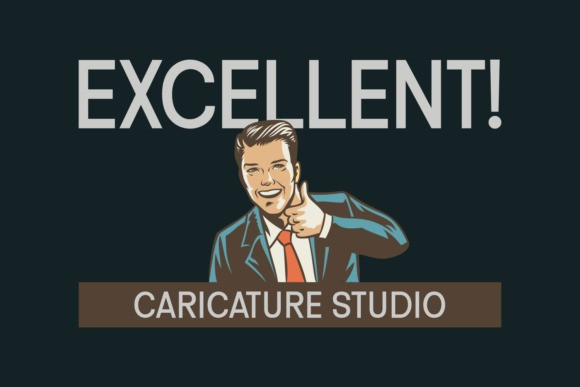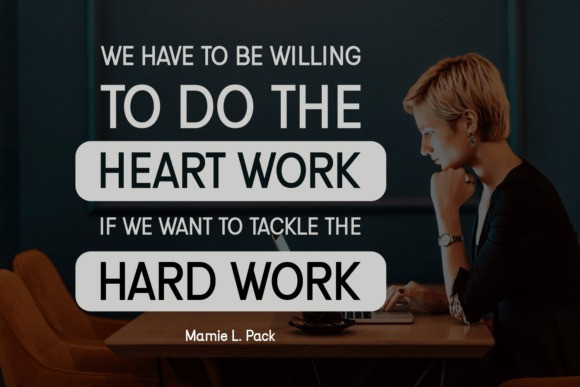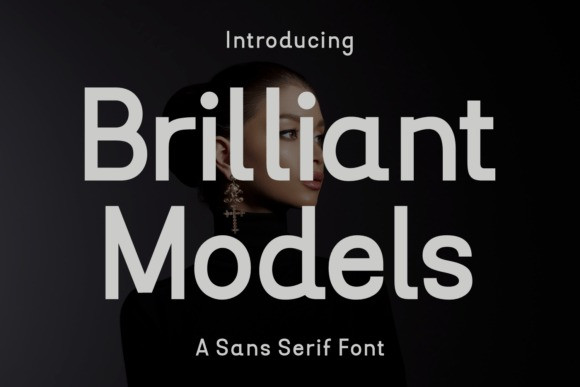
Brilliant Models Font
Brilliant Models Font is a sleek and modern sans serif font that radiates confidence and style. With its clean lines, rounded edges, and balanced proportions, this typeface is perfect for fashion branding, editorials, social media, and minimalist design projects. Brilliant Models blends elegance with versatility, making it an ideal choice for both headlines and body text.